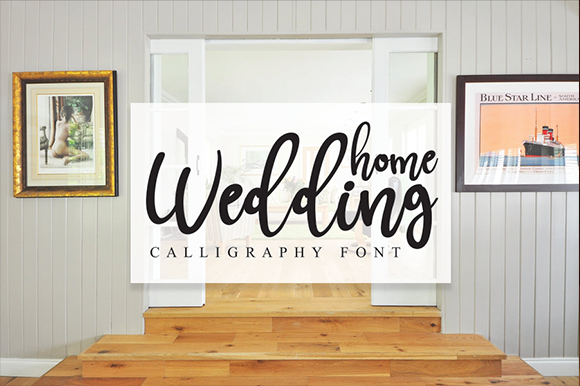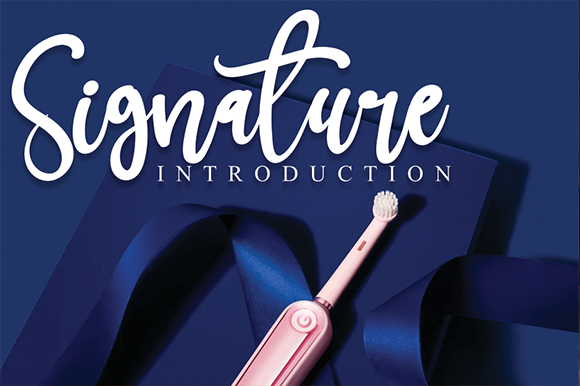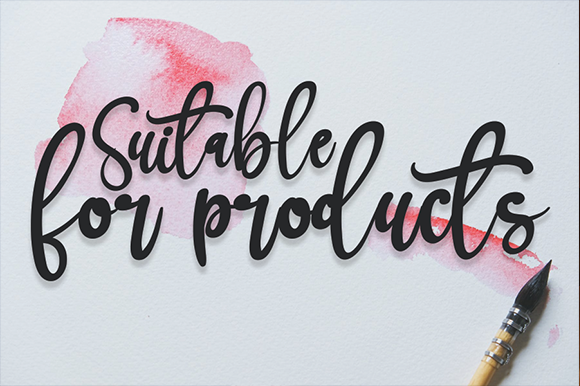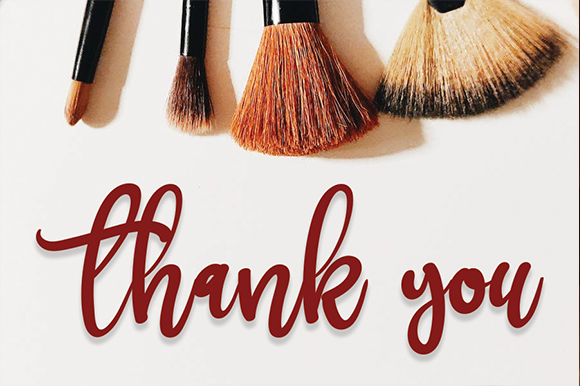
Introducing Brush Touch Font: Elevate Your Designs with Elegance and Charm
Are you looking for a font that can add a touch of sophistication and whimsy to your design projects? Look no further than Brush Touch Font. This stunning handwritten font is a stylish homage to classic calligraphy, and it’s sure to elevate a wide range of design projects to the highest level. From branding and headings to wedding designs, invitations, signatures, logos, labels, and more, Brush Touch Font is the perfect choice for designers and crafters who want to add a touch of elegance and charm to their work.
The Characteristics of Brush Touch Font
Brush Touch Font is a beautifully crafted handwritten font that feels equally charming and elegant. Its unique brush-like strokes and flowing lines give it a distinctive look that’s reminiscent of traditional calligraphy. The font is highly legible and versatile, making it suitable for a wide range of design applications. Whether you’re creating a logo, heading, or body text, Brush Touch Font is sure to make a lasting impression.
What Makes Brush Touch Font So Special?
So, what sets Brush Touch Font apart from other fonts on the market? Here are just a few reasons why this font is a cut above the rest:
- Unique and Elegant Design: Brush Touch Font features a unique and elegant design that’s sure to turn heads. Its brush-like strokes and flowing lines give it a distinctive look that’s both sophisticated and whimsical.
- Highly Legible: Despite its elegant design, Brush Touch Font is highly legible, even at small sizes. This makes it perfect for use in body text, headings, and other design applications where clarity is key.
- Versatile: Brush Touch Font is incredibly versatile, making it suitable for a wide range of design projects. Whether you’re creating a logo, heading, or body text, this font is sure to deliver.
How to Use Brush Touch Font in Your Designs
Using Brush Touch Font in your designs is easy. Here are a few tips to get you started:
- Pair it with Other Fonts: Brush Touch Font pairs well with other fonts, including sans-serif fonts like Arial and Helvetica. Try pairing it with a bold font for headings and a clean font for body text.
- Use it for Headings and Titles: Brush Touch Font is perfect for use in headings and titles. Its elegant design and flowing lines make it ideal for creating eye-catching headings that draw attention.
- Add it to Your Branding: If you’re looking for a way to add a touch of elegance and sophistication to your branding, Brush Touch Font is a great choice. Use it in your logo, business cards, and other marketing materials to create a cohesive look.
In conclusion, Brush Touch Font is a stunning handwritten font that’s sure to elevate a wide range of design projects to the highest level. Its unique and elegant design, high legibility, and versatility make it a great choice for designers and crafters who want to add a touch of sophistication and whimsy to their work. Whether you’re creating a logo, heading, or body text, Brush Touch Font is the perfect choice. So why wait? Download Brush Touch Font today and start creating beautiful designs that impress!
Key Features of Brush Touch Font
- Beautifully crafted handwritten font
- Unique brush-like strokes and flowing lines
- Highly legible and versatile
- Suitable for a wide range of design applications